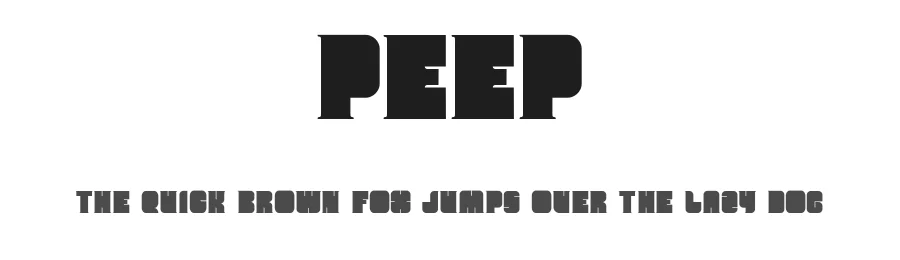
About Oh Mega Sigh Font
Oh Mega Sigh is a decorative font designed by Matt Perkins. It includes 69 glyphs, a regular weight, TTF (TrueType) format, and 89 languages. Oh Mega Sigh is free to download; check the license details on this page before commercial use. Decorative fonts like Oh Mega Sigh work best for logos, posters, packaging, and standout headlines.
Oh Mega Sigh Font is a decorative font that shines as a display or heading face. Pair it with a clean sans-serif or serif font for body text β the contrast creates a clear hierarchy while the two styles stay balanced and easy to read.
Oh Mega Sigh Font
by Matt Perkins
Oh Mega Sigh Font is a decorative typeface by Matt Perkins, ideal for logos, invitations, branding, and creative projects.